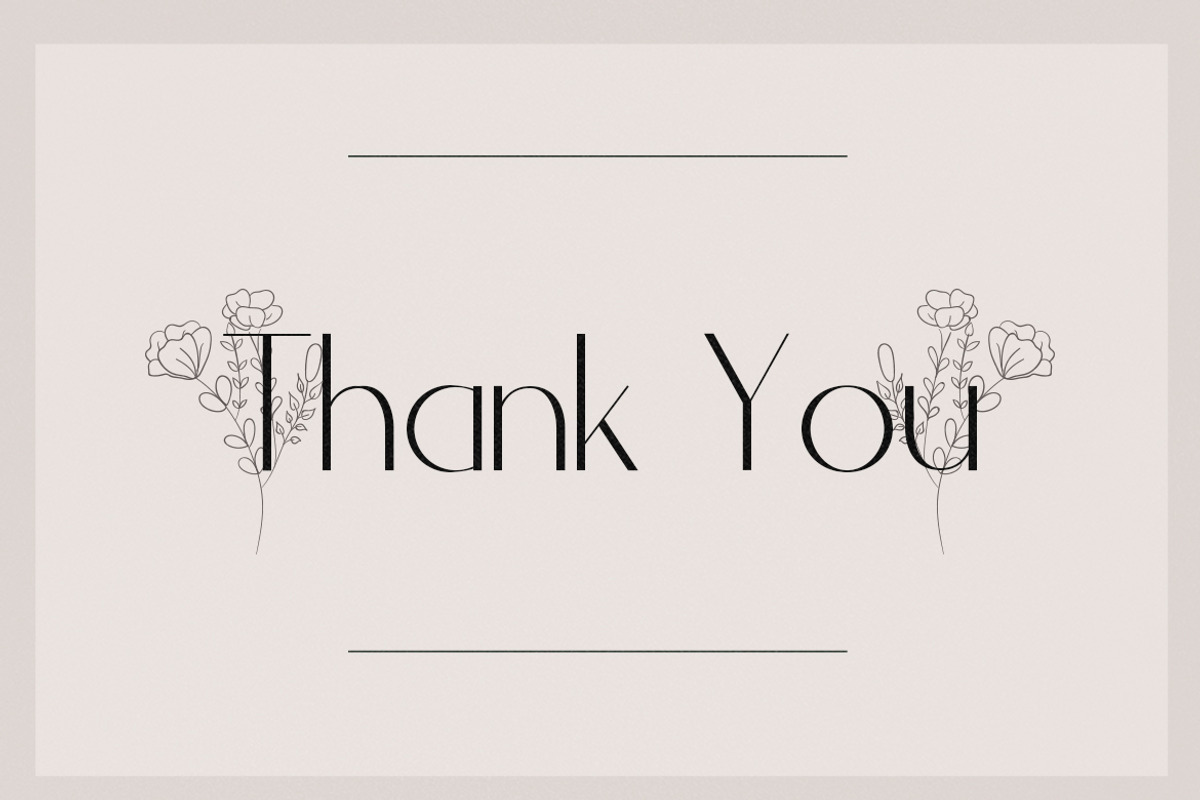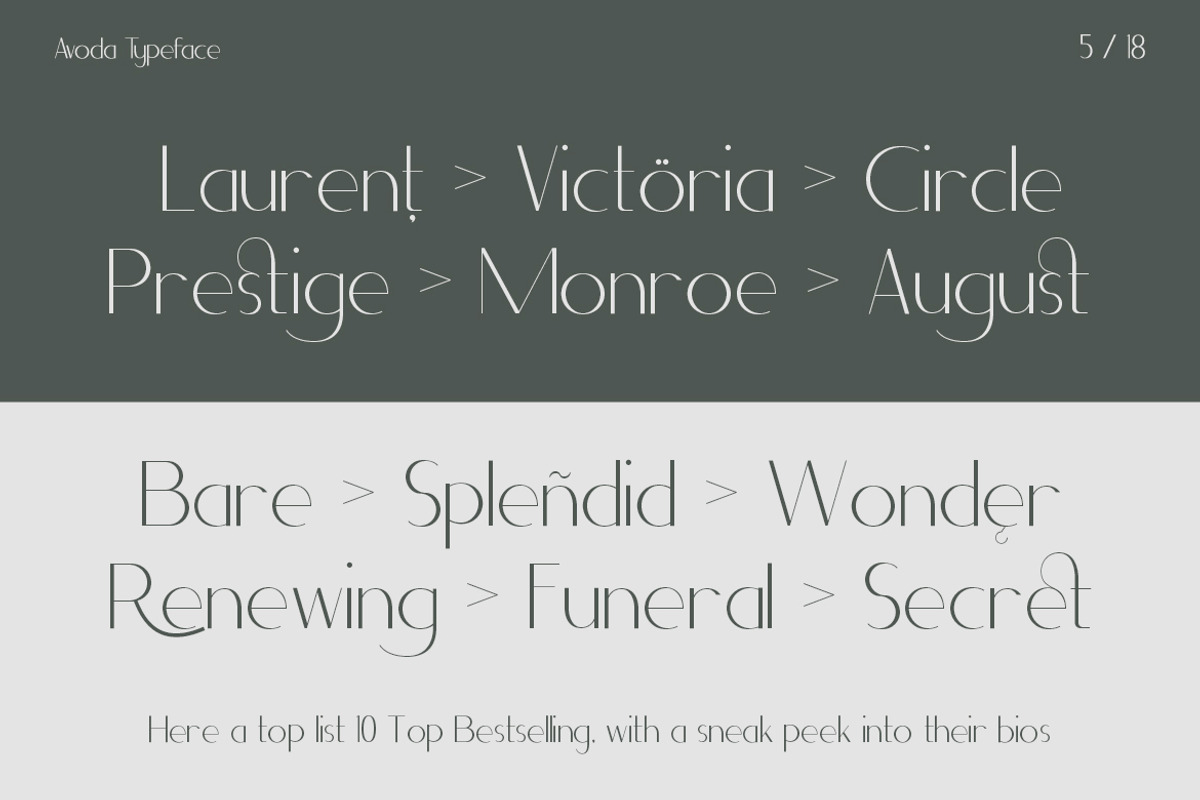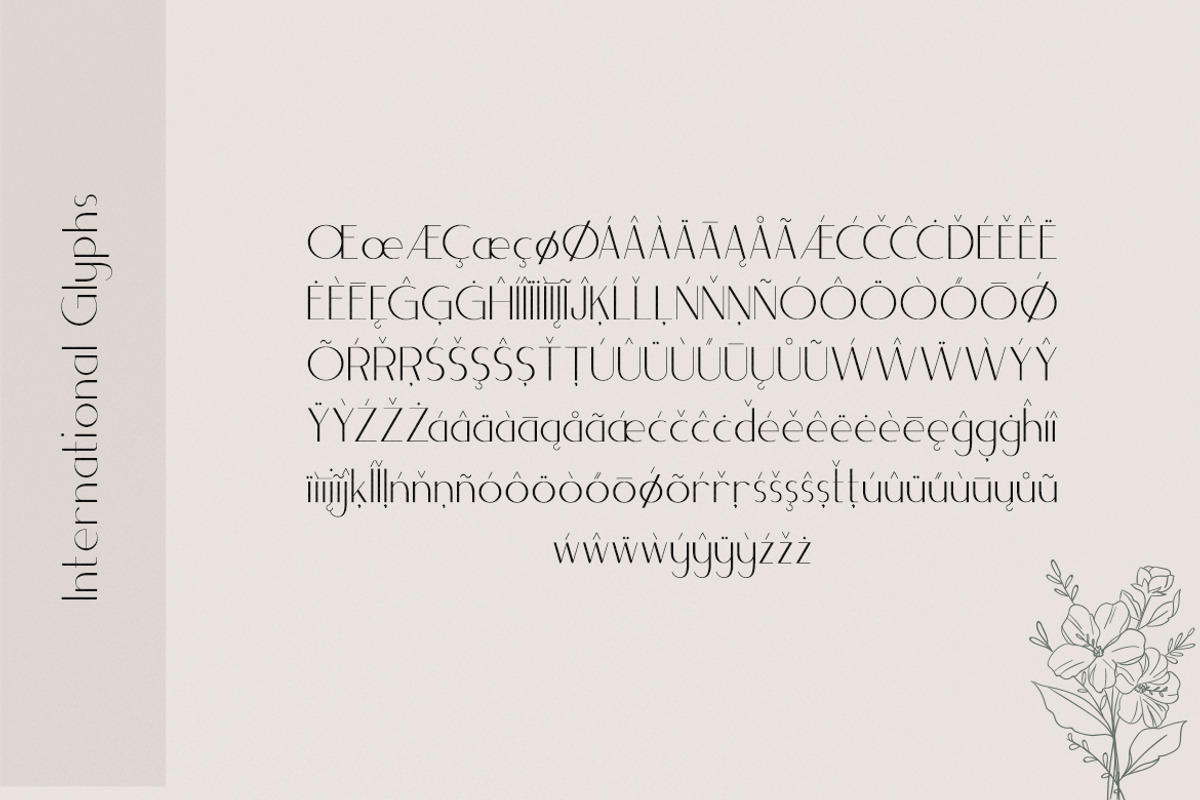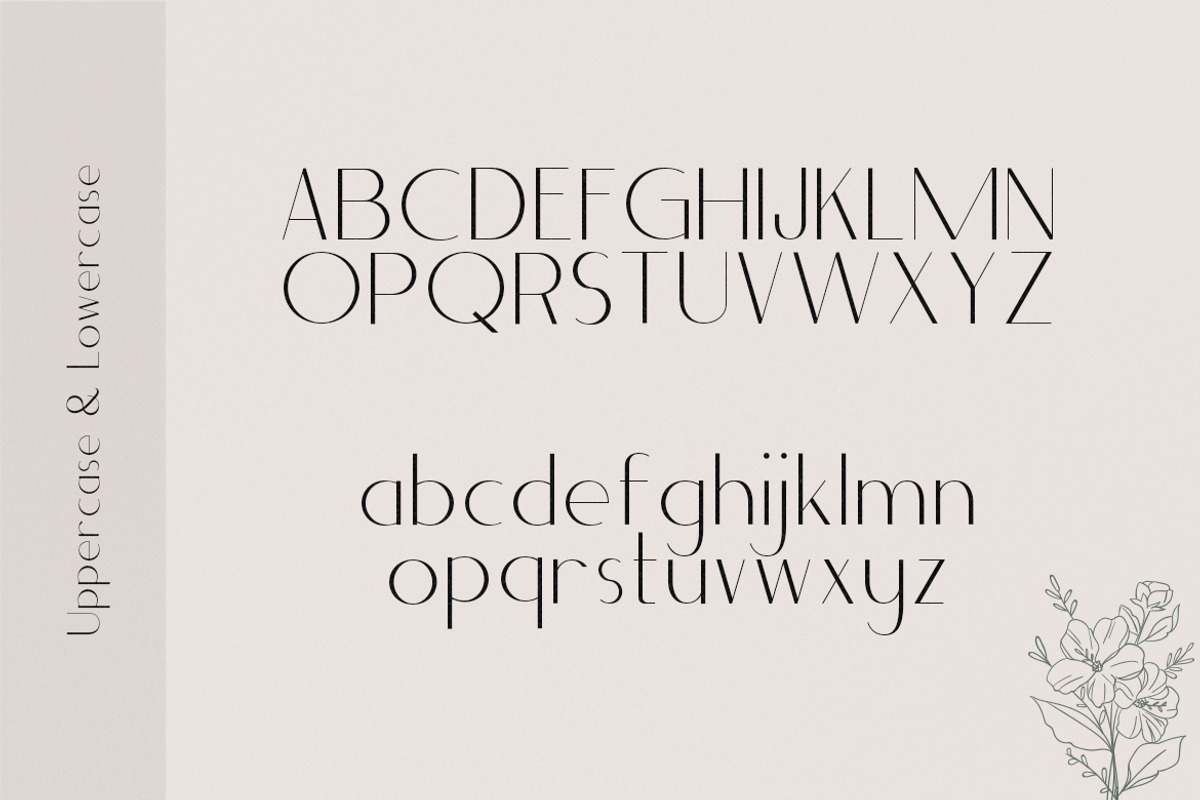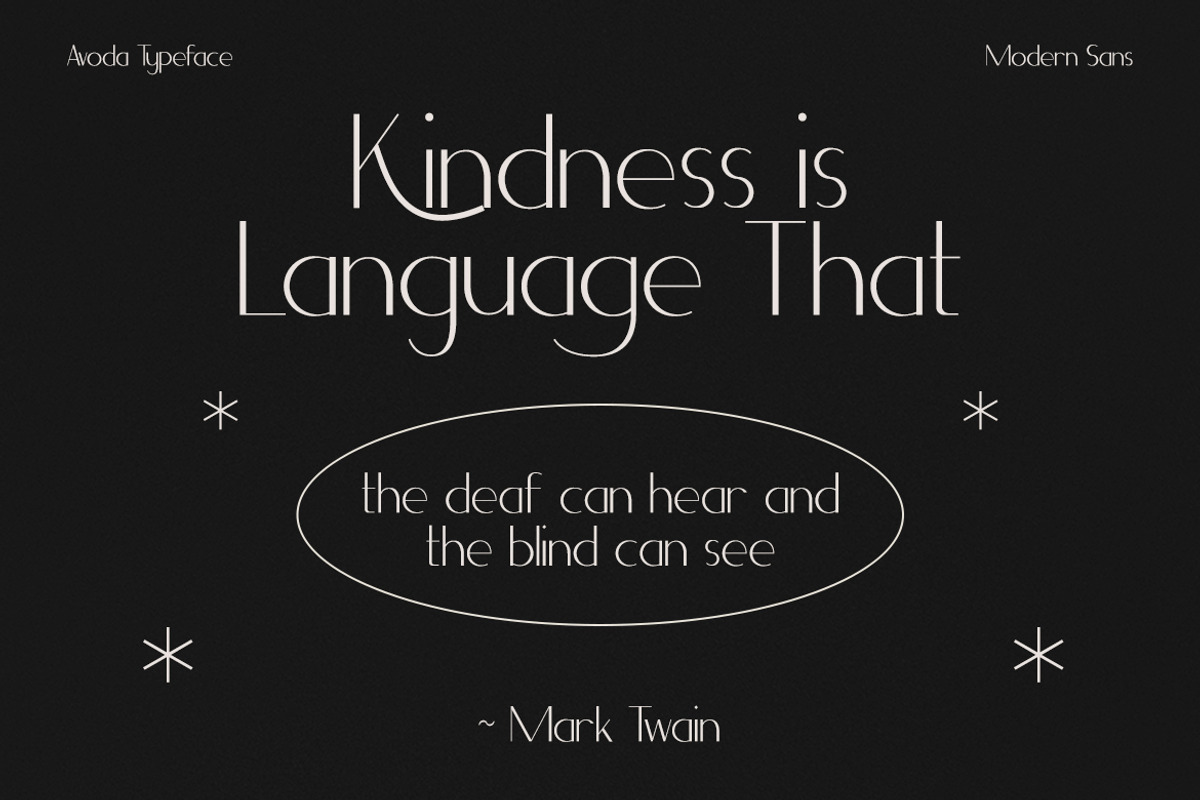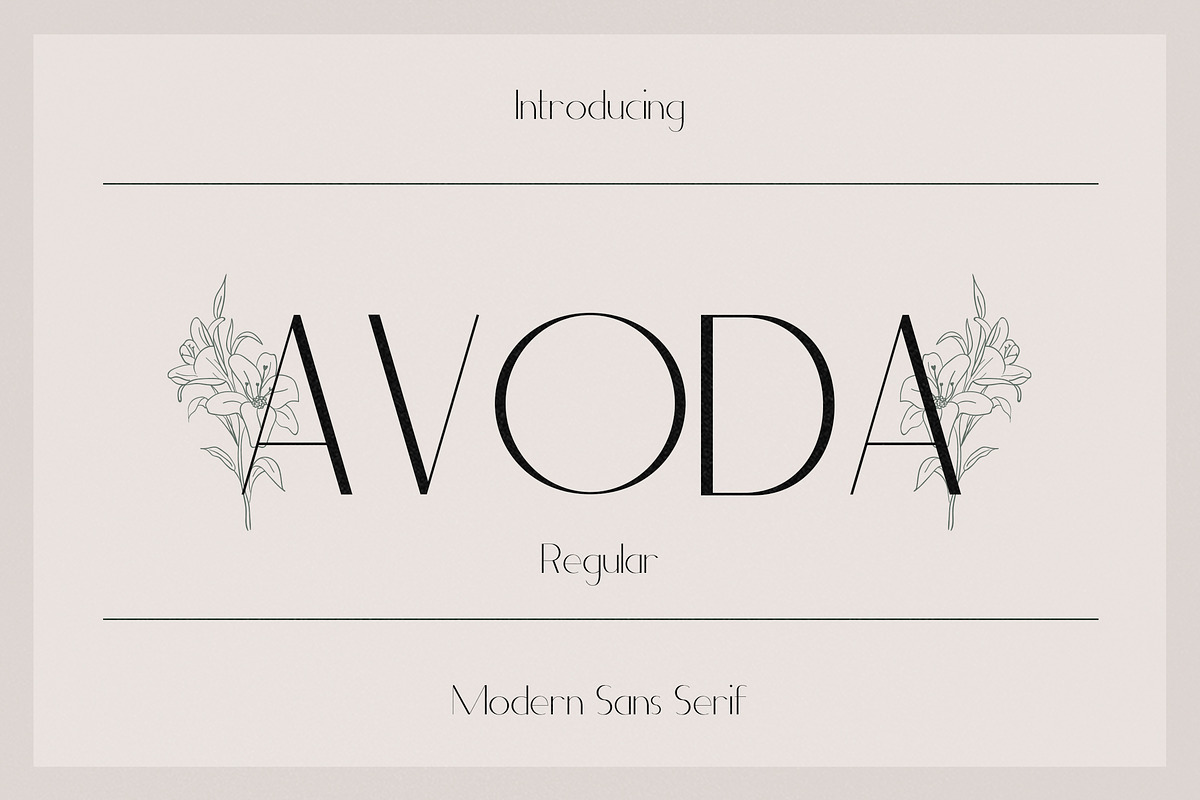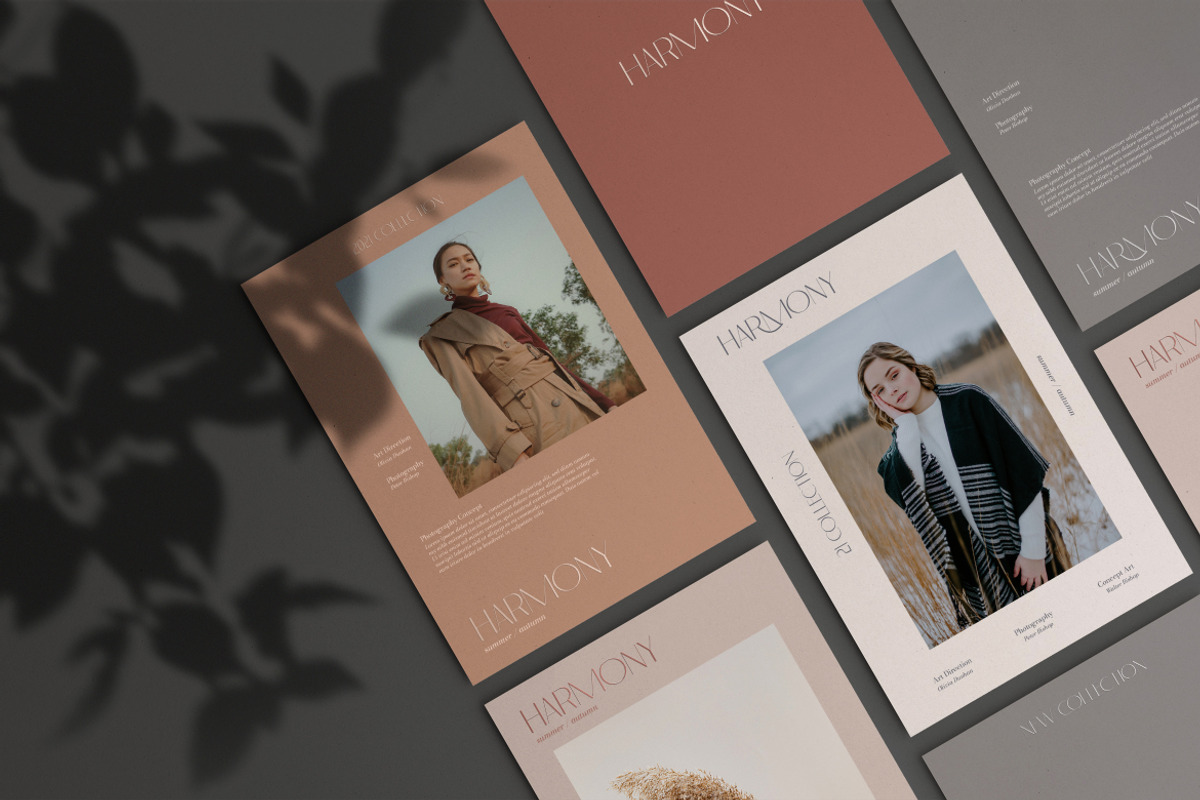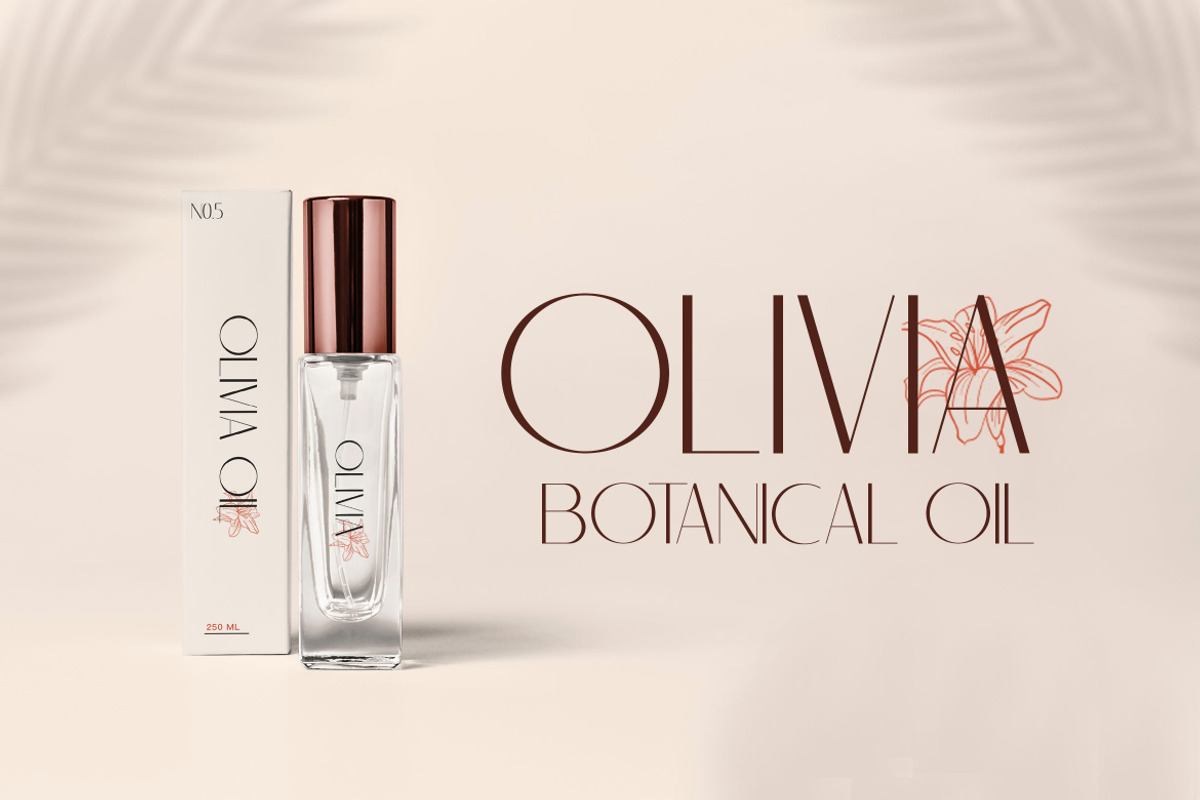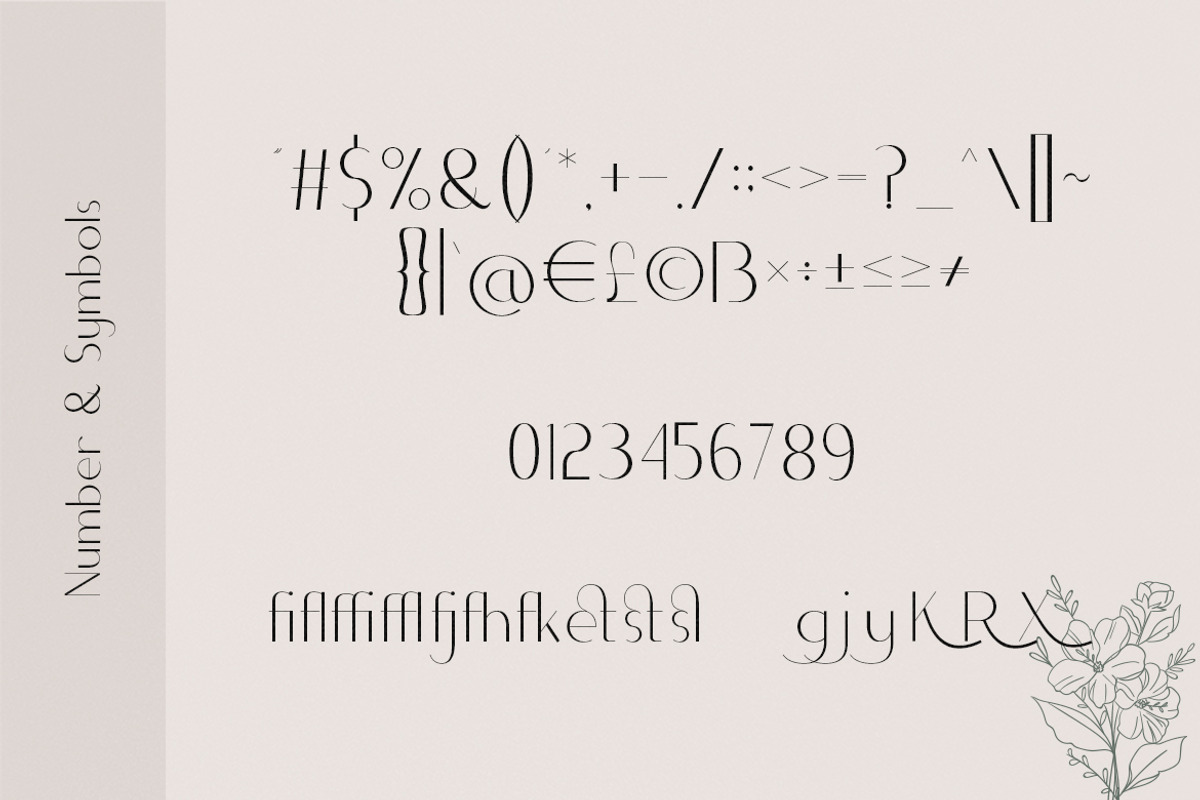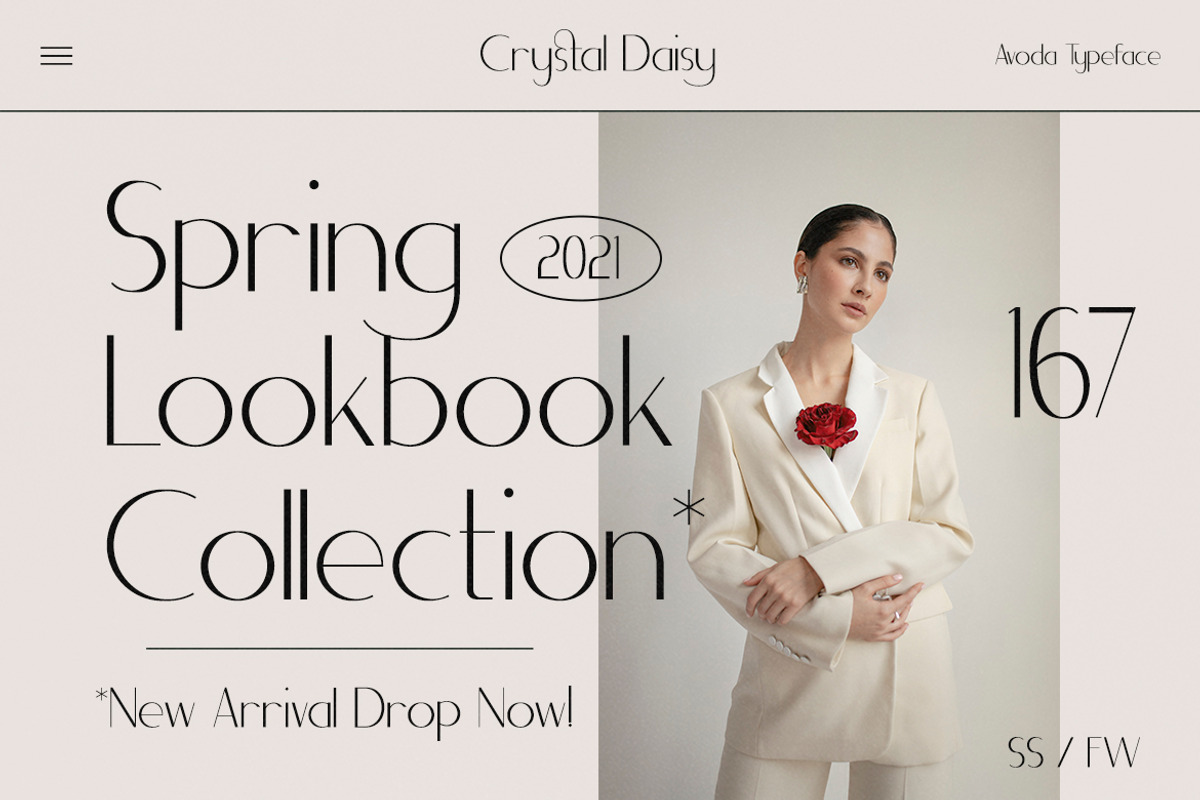
Avoda - Modern Sans Serif
Avoda is an elegant and modern sans serif font. No matter the topic, this font will be an incredibly asset to your fonts’ library, as it has the potential to elevate any creation.